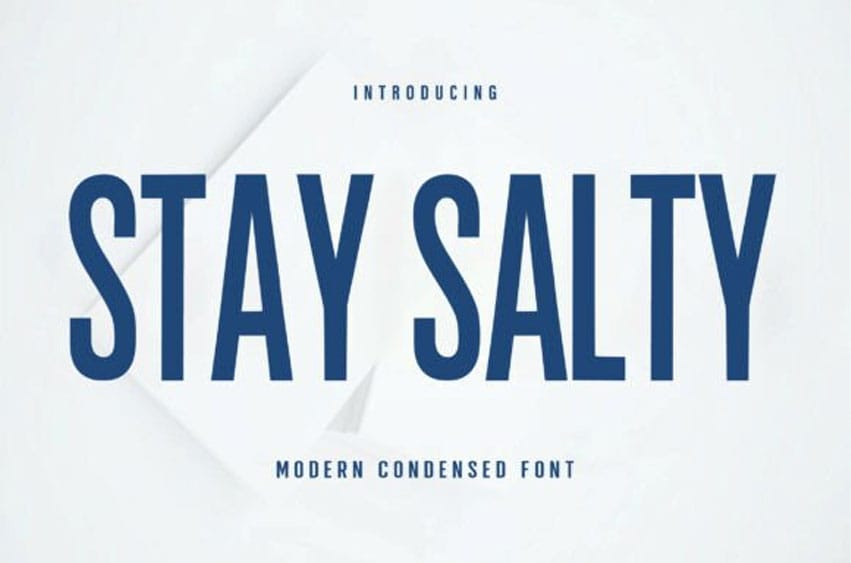
Stay Salty Font is a bold and modern condensed display font that brings a strong and stylish look to your designs. With its tall and powerful letterforms, this font is perfect for headlines, logos, posters, branding, t-shirts, and modern creative projects.
Stay Salty combines a clean and minimal style with a confident personality, making it ideal for designers who want to create eye-catching and professional typography. Add this font to your collection and make your designs stand out with a bold modern touch.